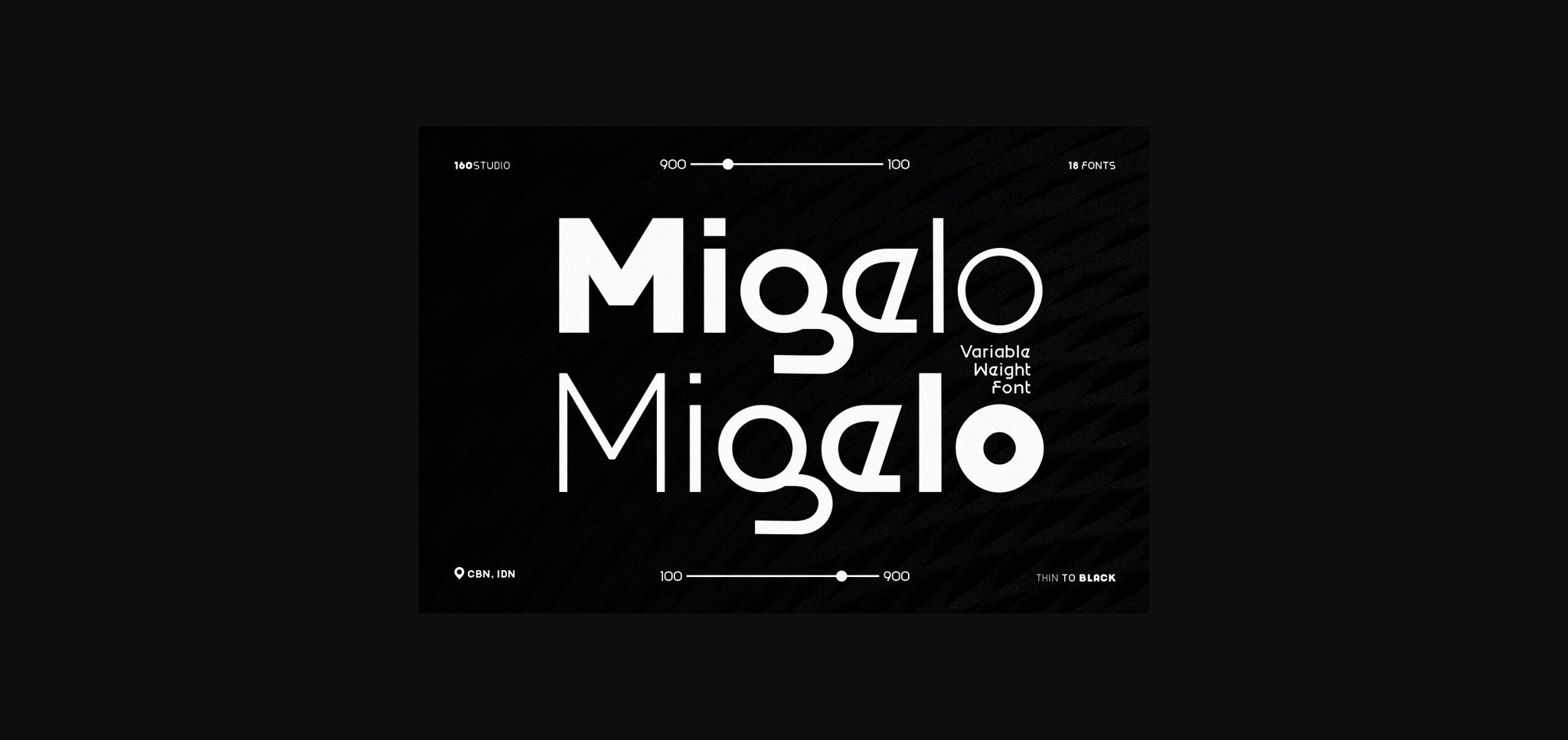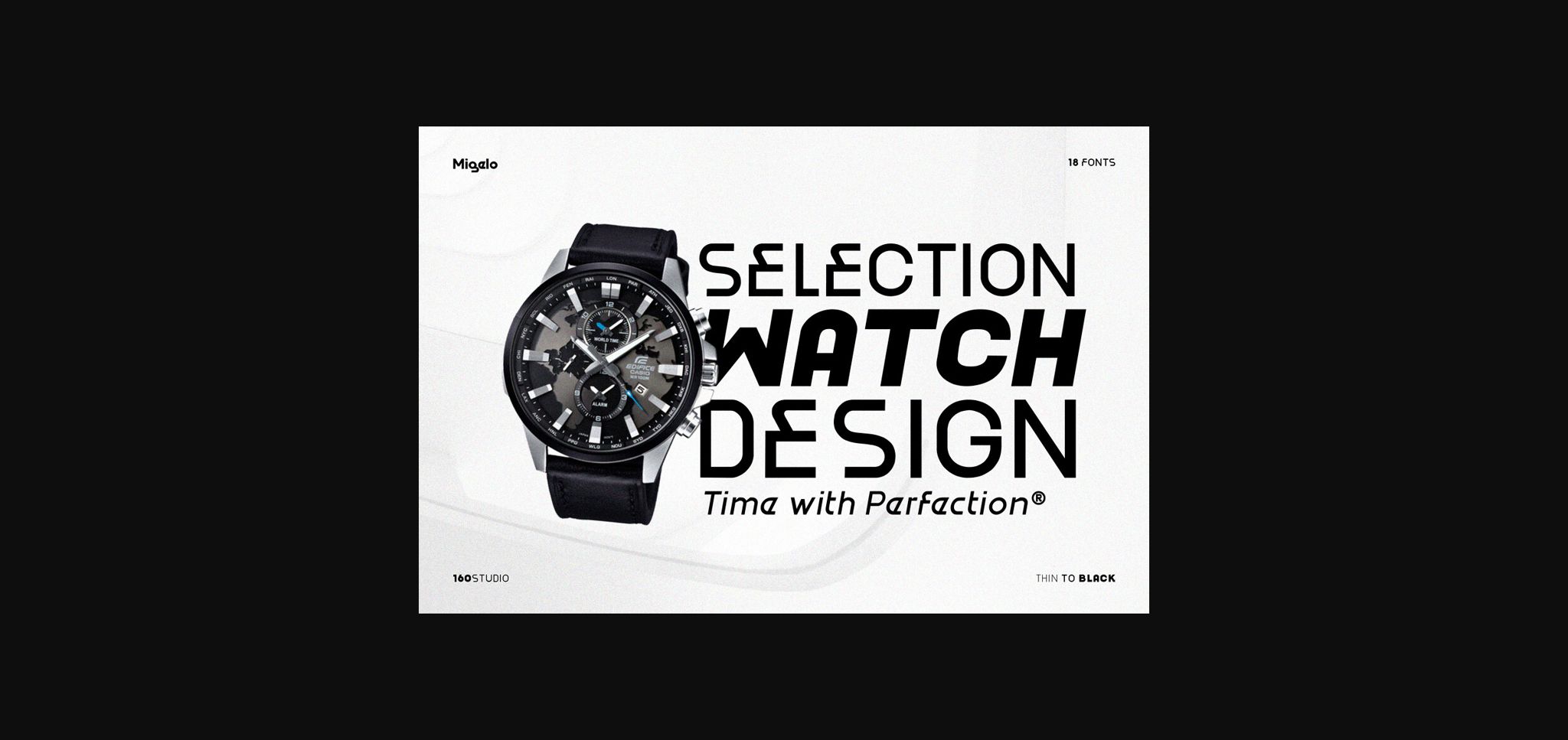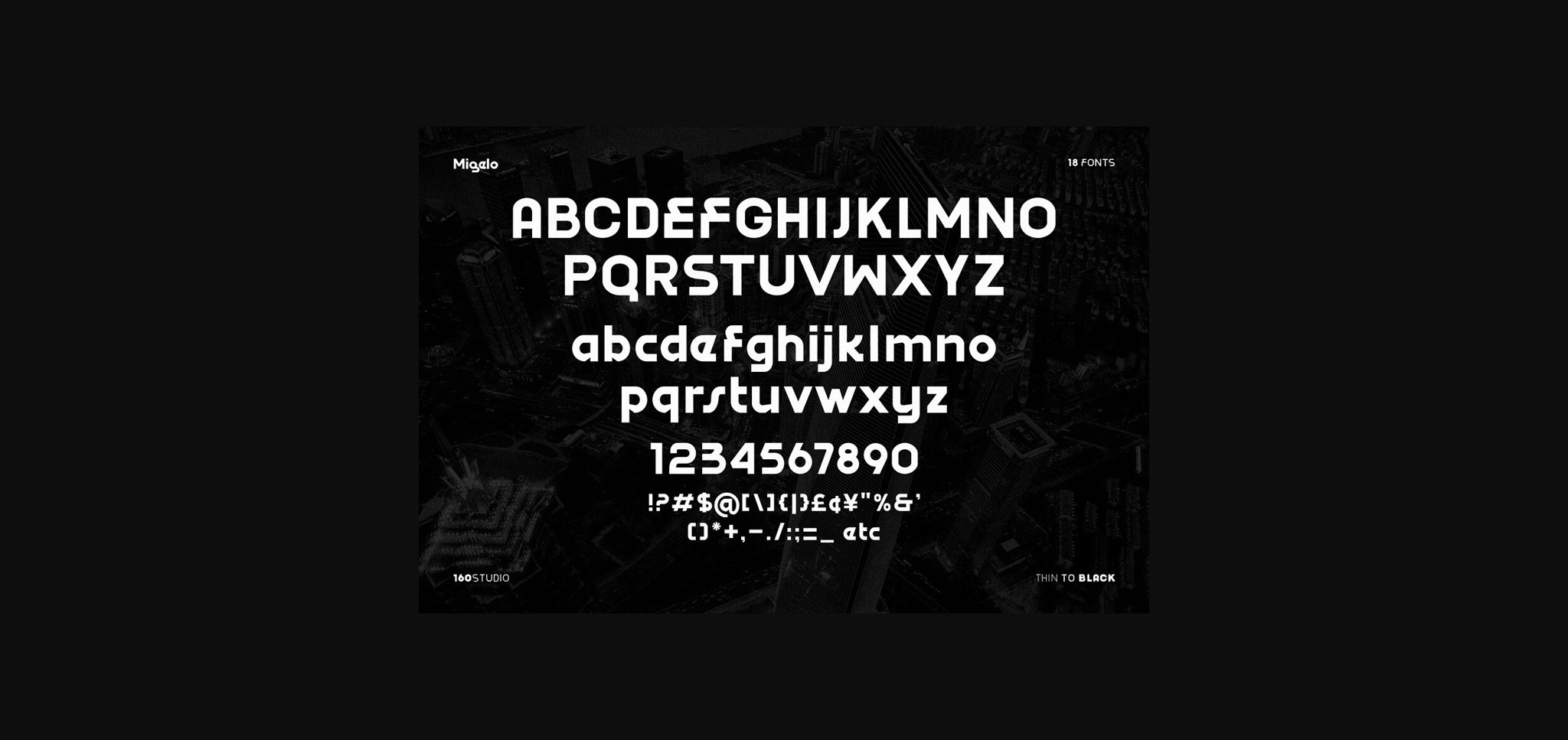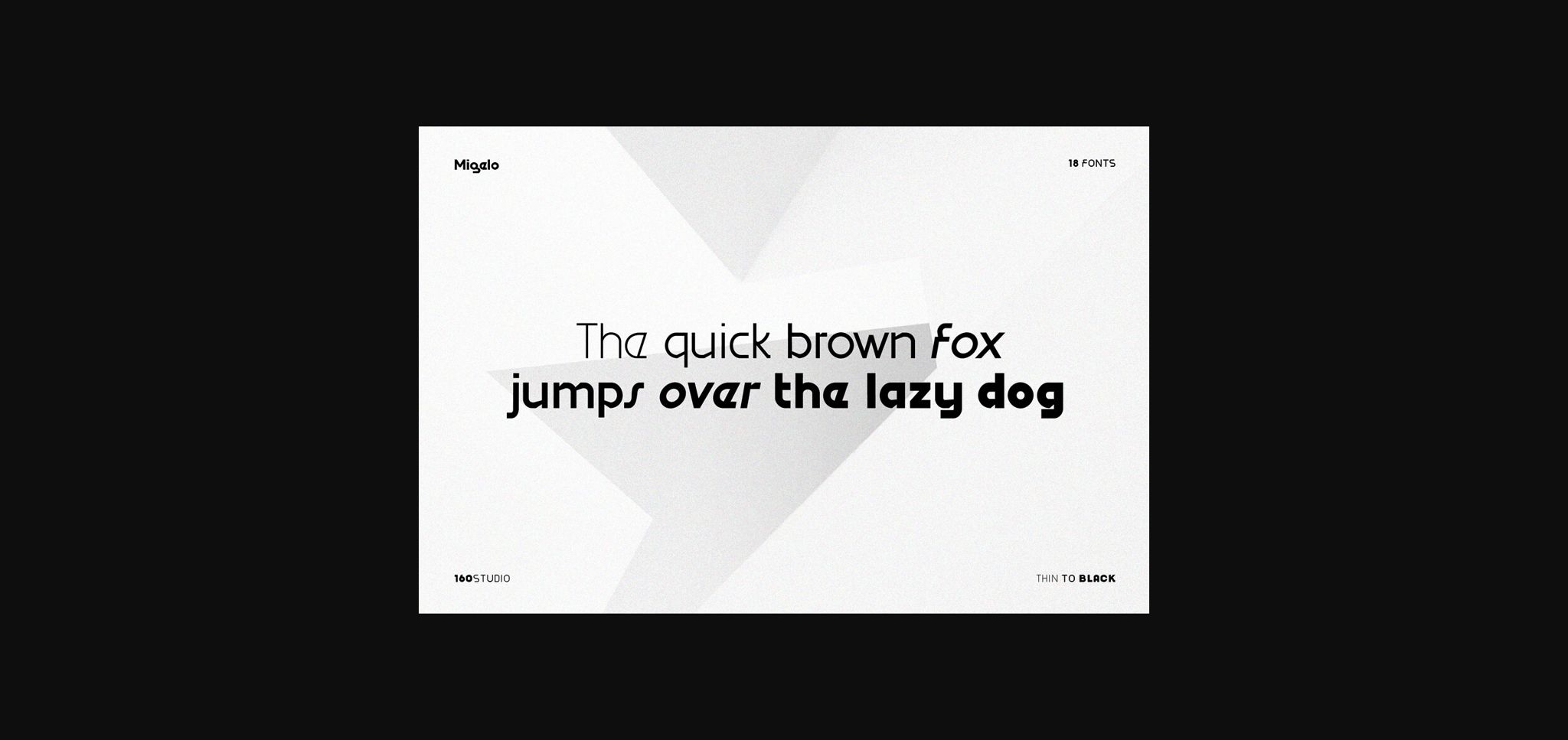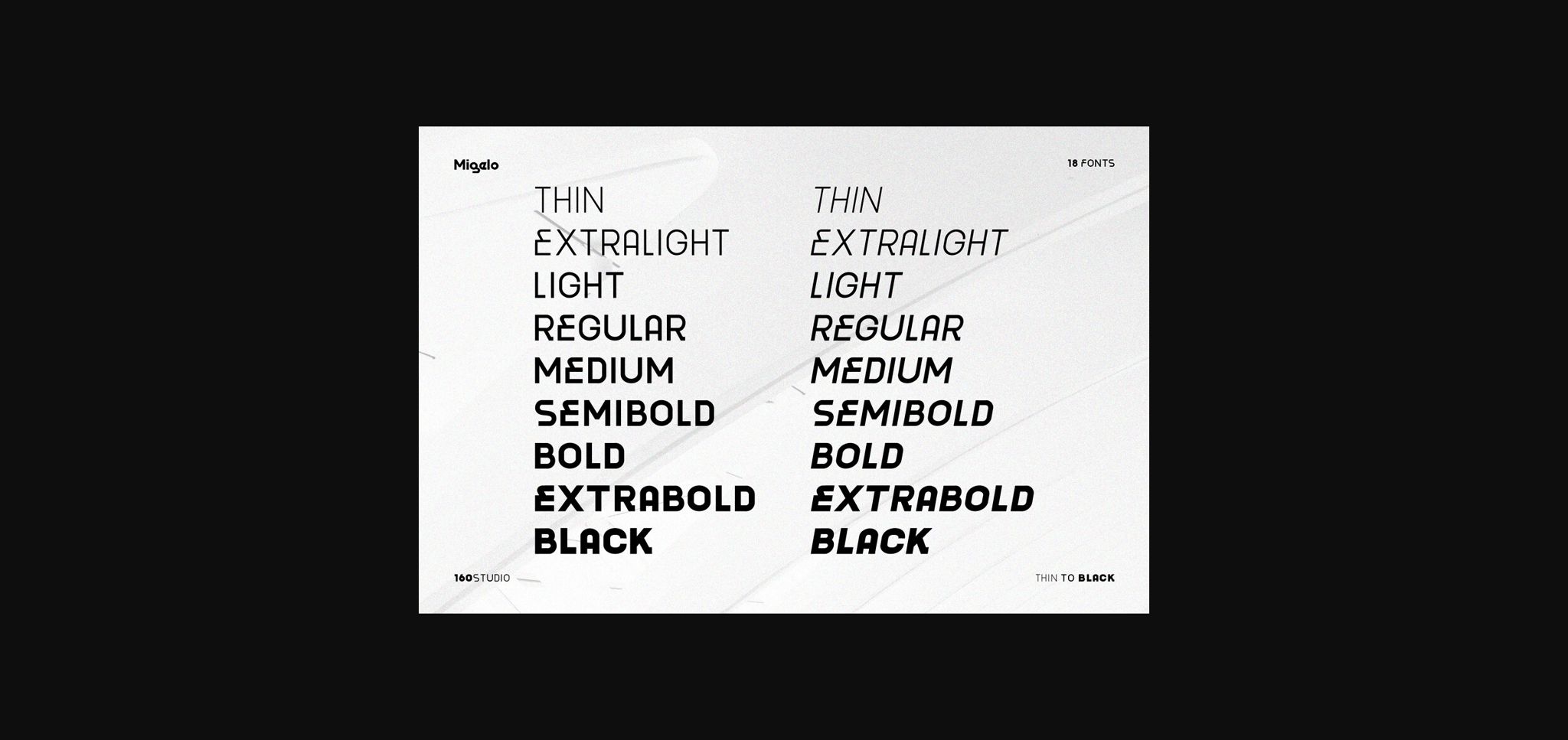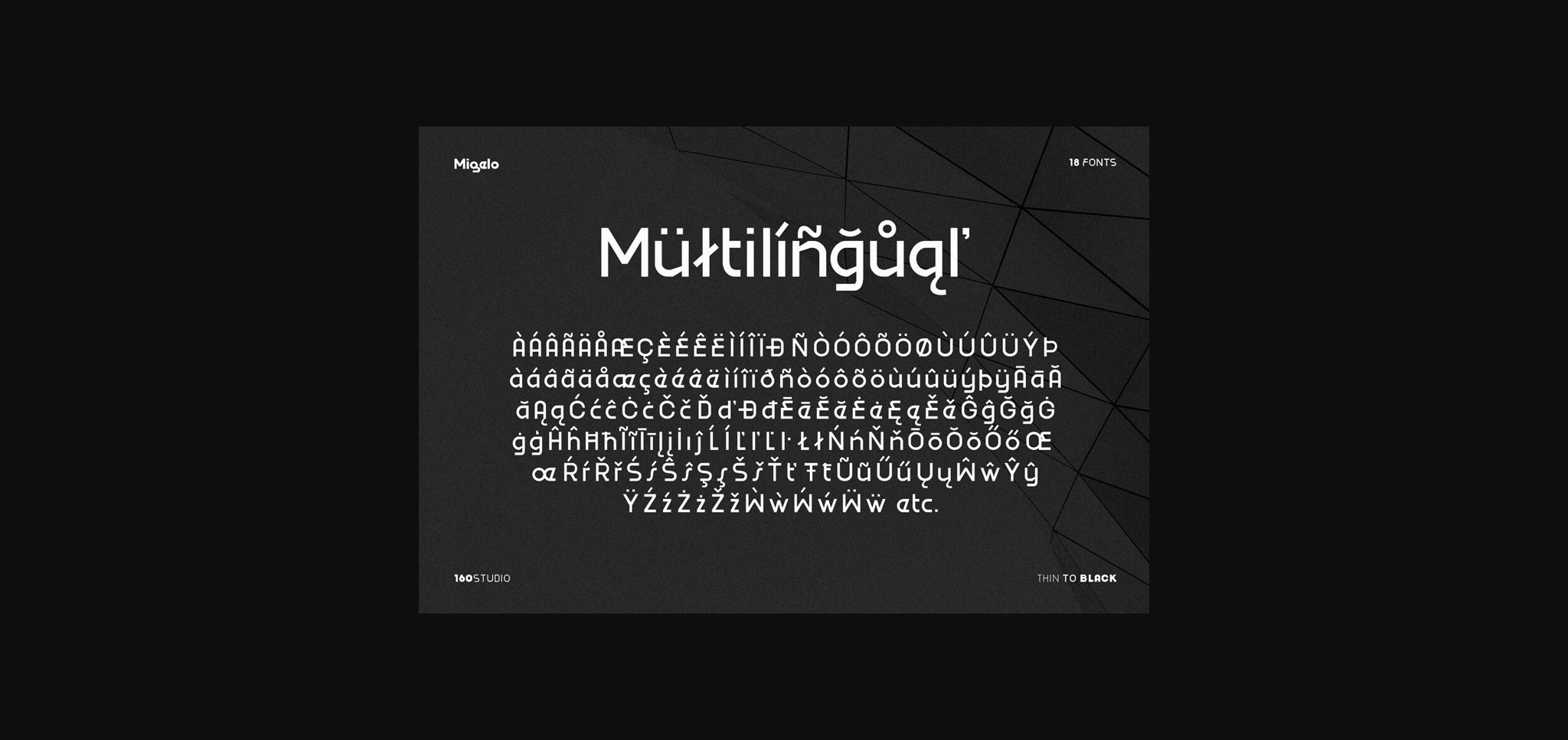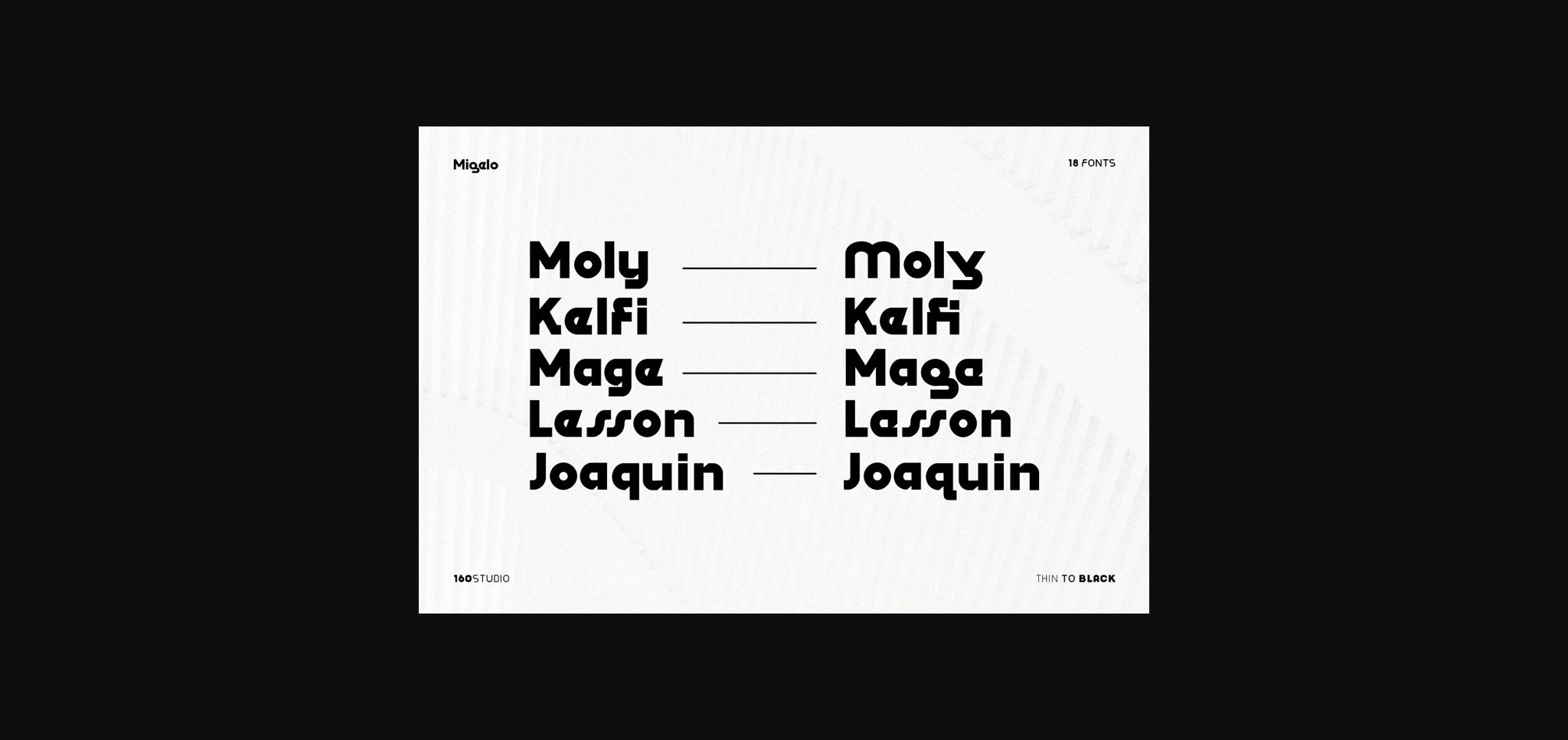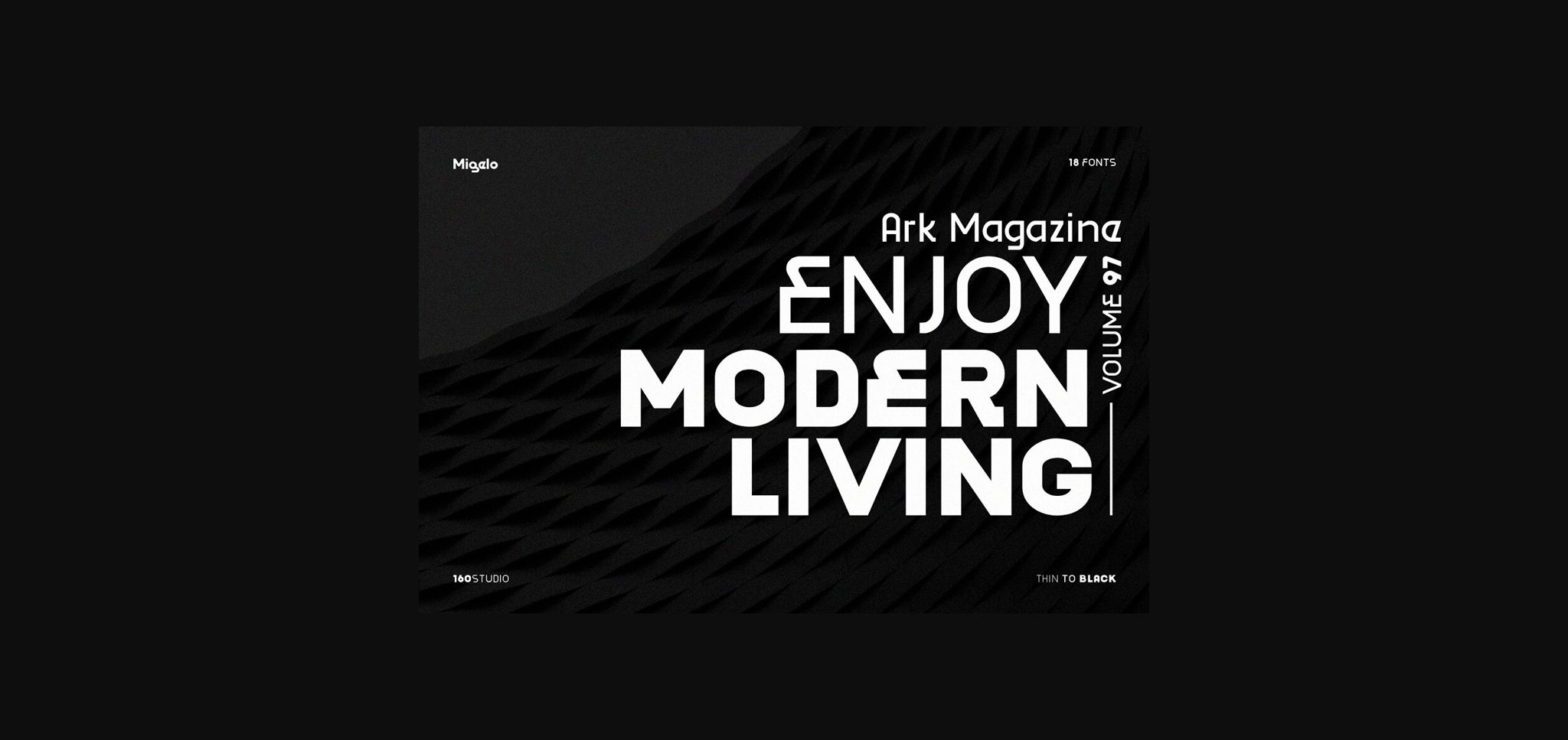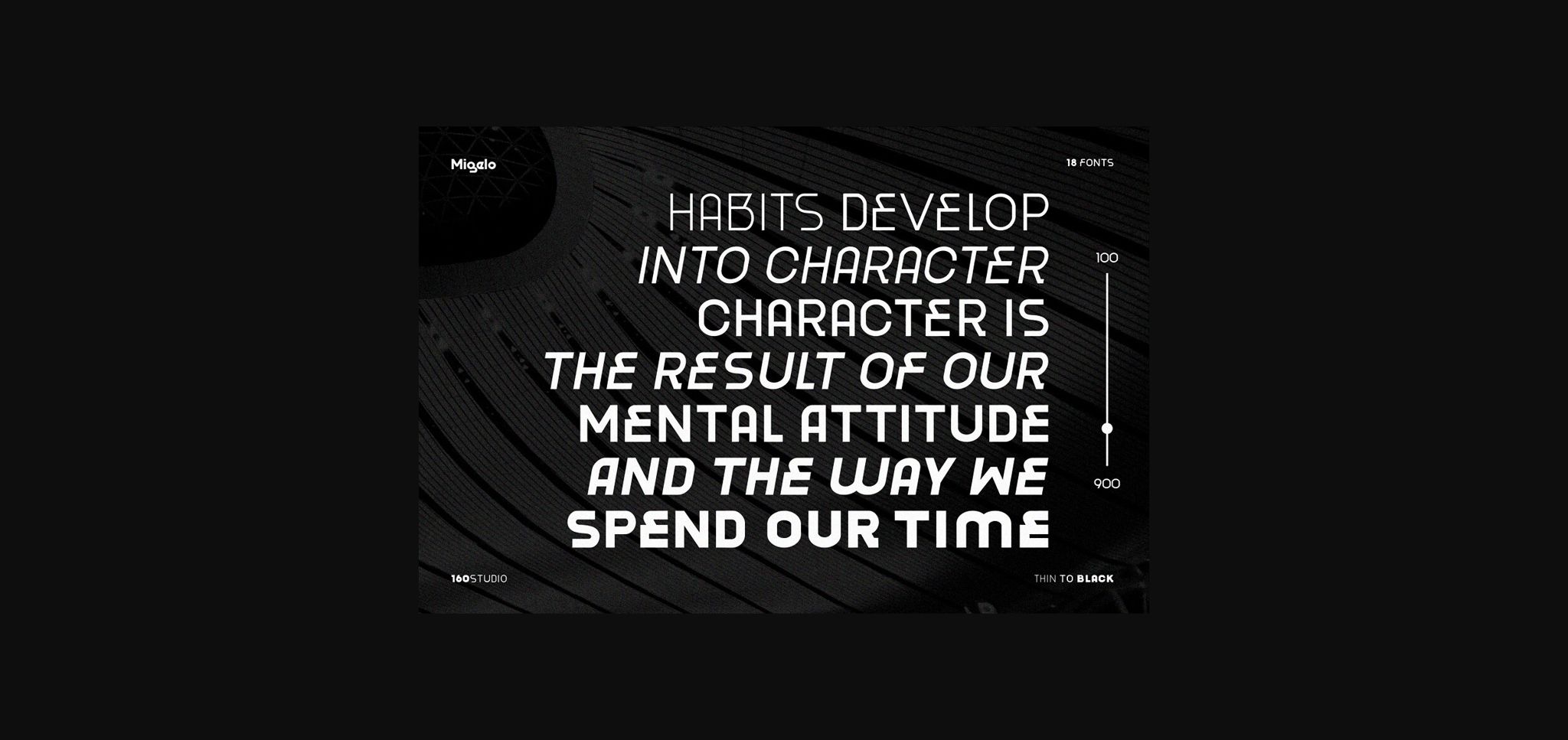
Migelo Variable Font
About Migelo Variable Font
Migelo is a versatile font meticulously crafted for optimal text display, offering a spectrum of 9 variations from thin to black, accompanied by 9 italic versions. Ideal for a myriad of purposes, Migelo is your go-to choice for creating captivating headlines, distinctive logos and brands, expressive quotes, eye-catching posters, and impactful product displays. Its range of weights and italics ensures adaptability, allowing Migelo to seamlessly elevate the visual appeal of a diverse array of design projects.